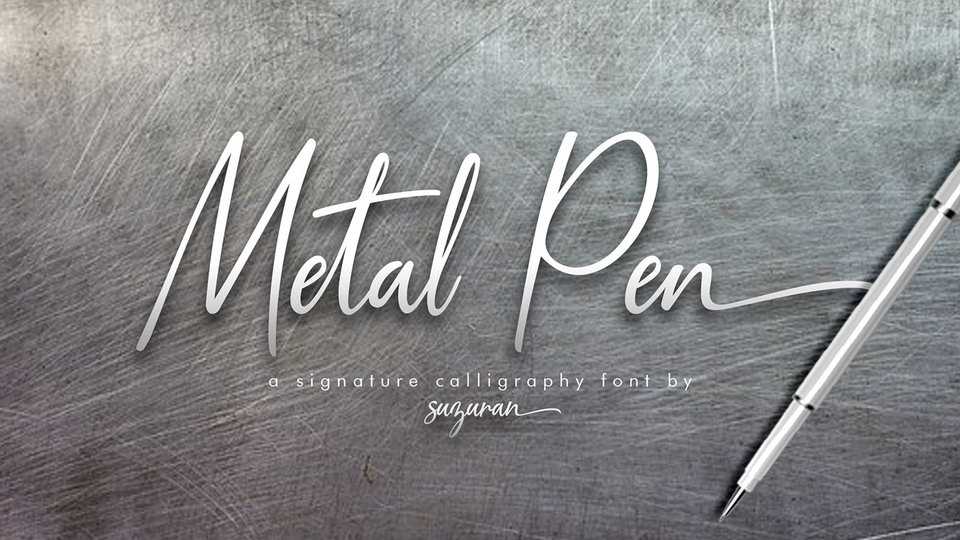
Download Metal Pen font, a casual signature style script that has very fresh and unique style handmade. It is perfectly suitable for logo, stationery, poster, apparel, branding, wedding invitation, card, tagline, layout design, and much more.
Designer: Suzuran Type